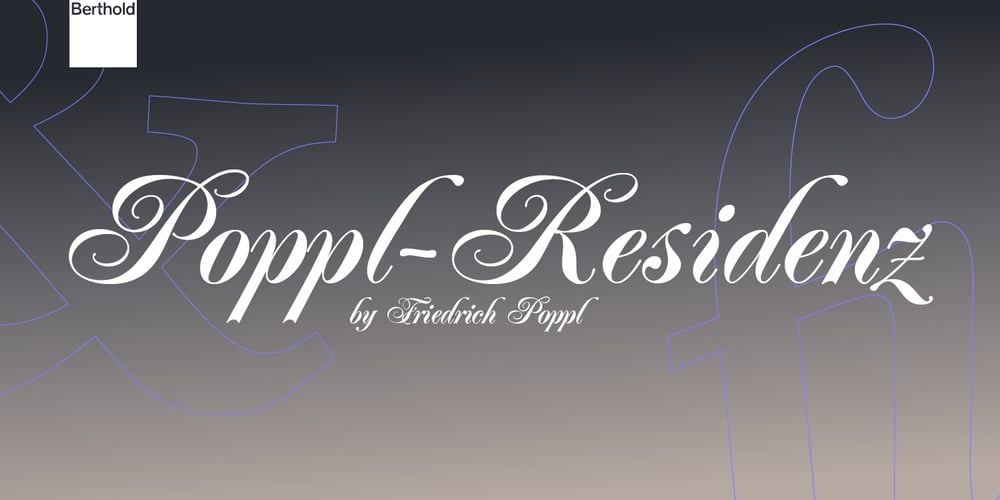
Poppl-Residenz Font Family was designed by Friedrich Poppl and published by Berthold. Poppl-Residenz contains 2 styles and family package options. This elegant, formal script from German designer and professor Friedrich Poppl was released by Berthold in 1977. It is recognizable by its highly flourished capitals and tall ascenders that sweep to the right.